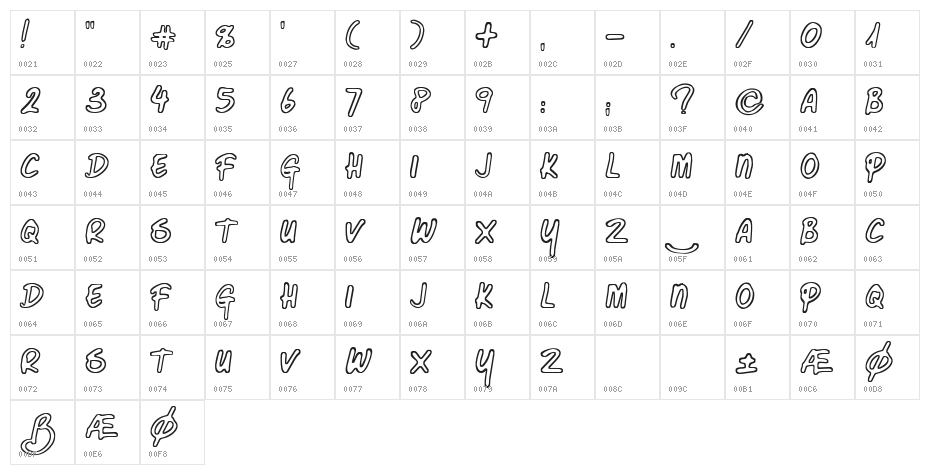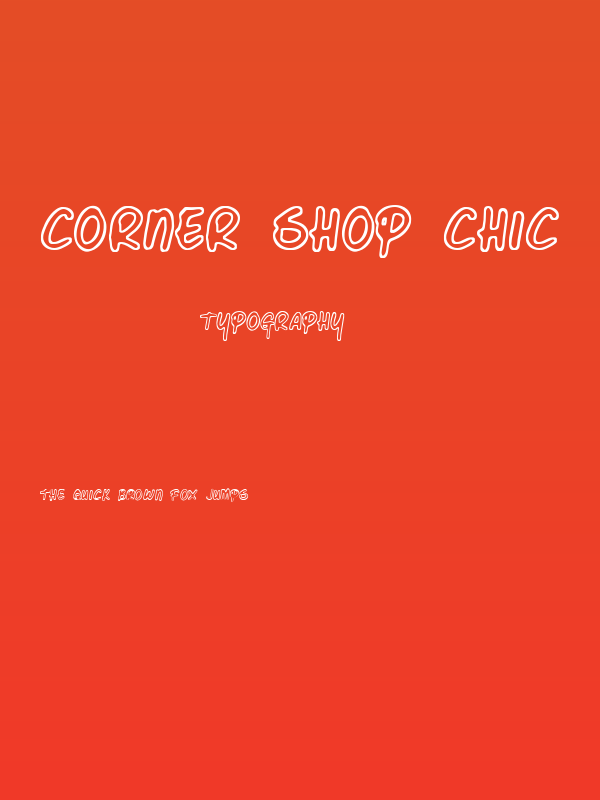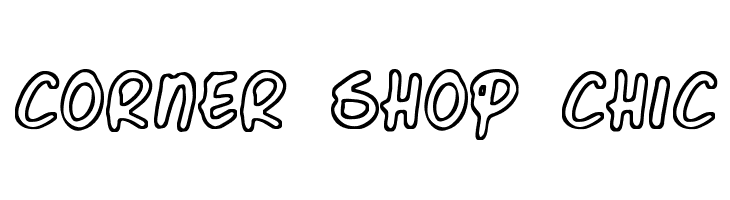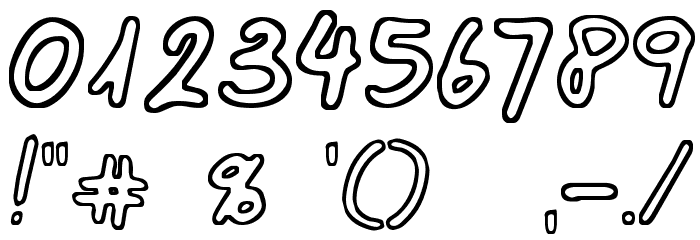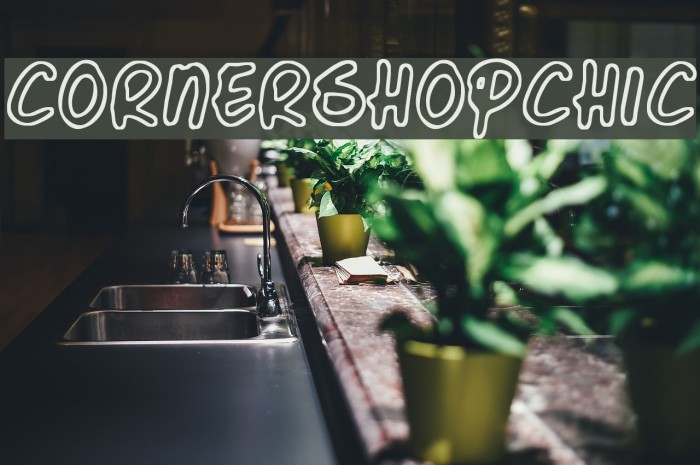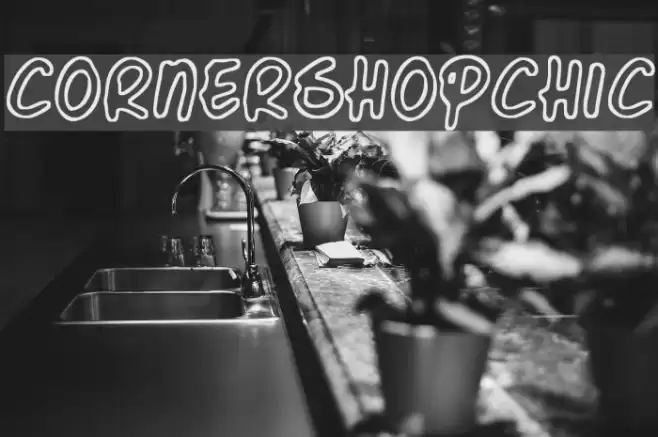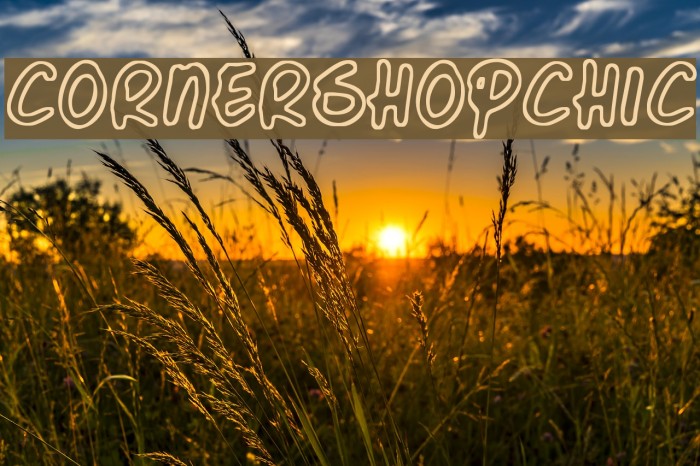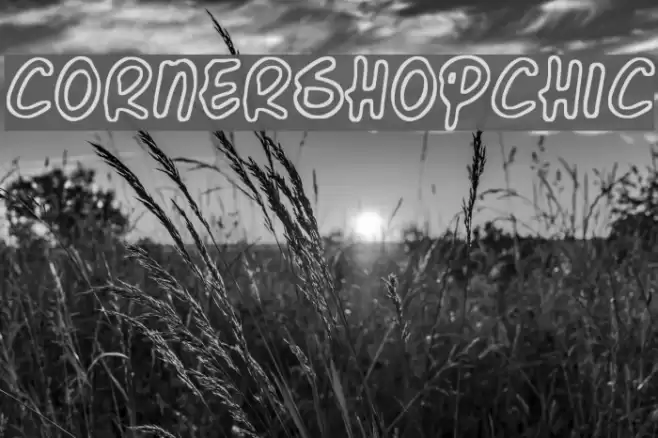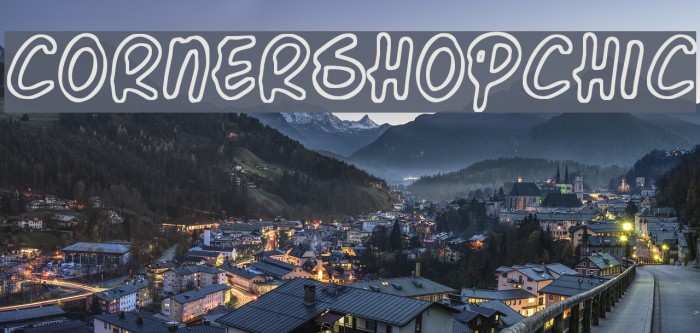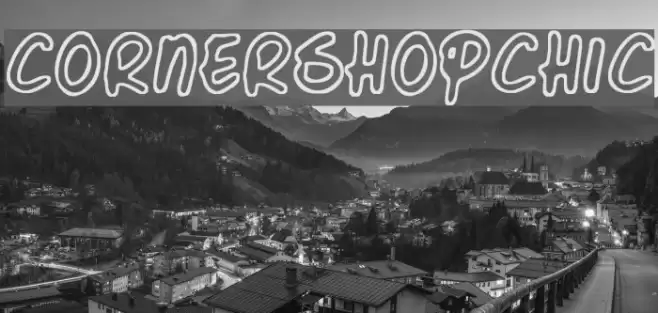
Corner Shop Chic Font
Corner Shop Chic Description
This playful and quirky font features a bold, hand-drawn style with a unique outline effect. Each character is crafted with a casual, artistic flair, giving it a distinctive and lively appearance. The uppercase and lowercase letters maintain a consistent style, with rounded edges and a slightly irregular form that adds to its charm. The numbers and special characters are equally expressive, making this font perfect for creative projects. Its boldness ensures readability while the outline adds a layer of depth, making it stand out in any design.
| Overall Style | Playful, Artistic |
| Proposed Projects | Ideal for children's books, playful branding, posters, and creative invitations. |